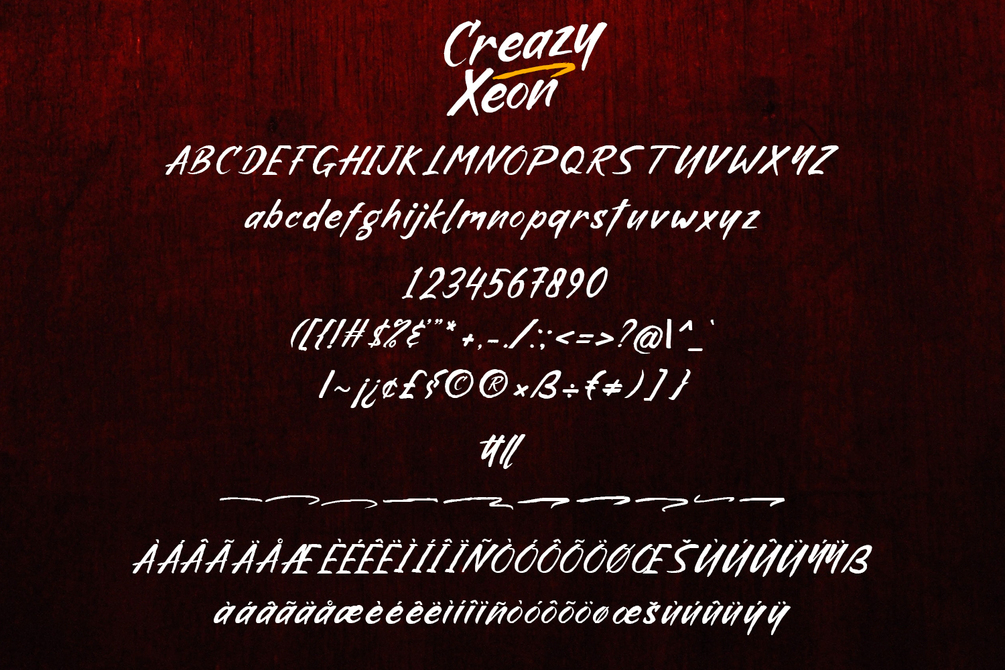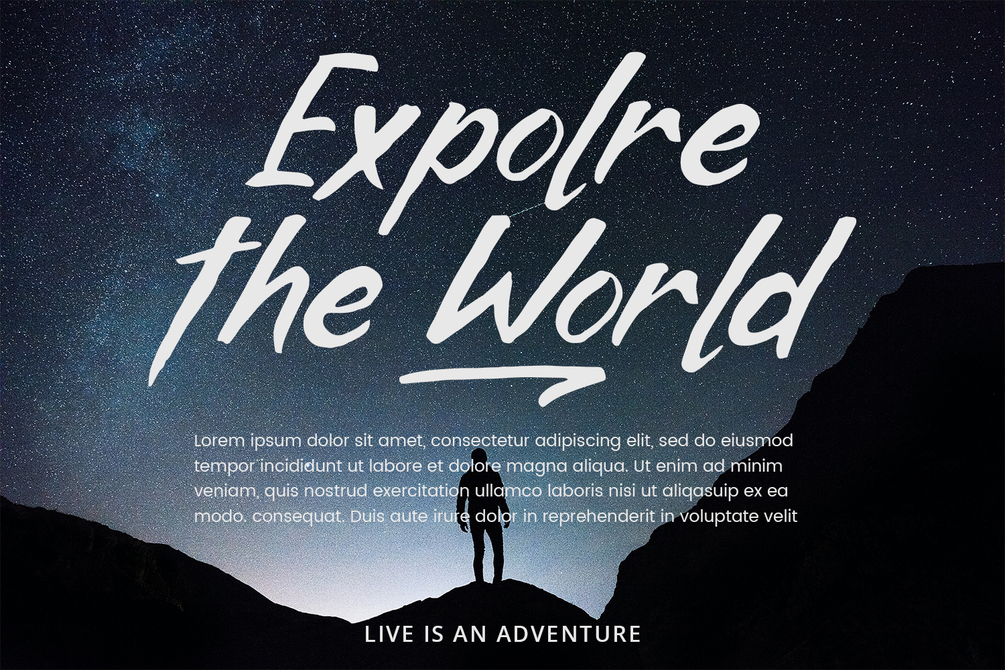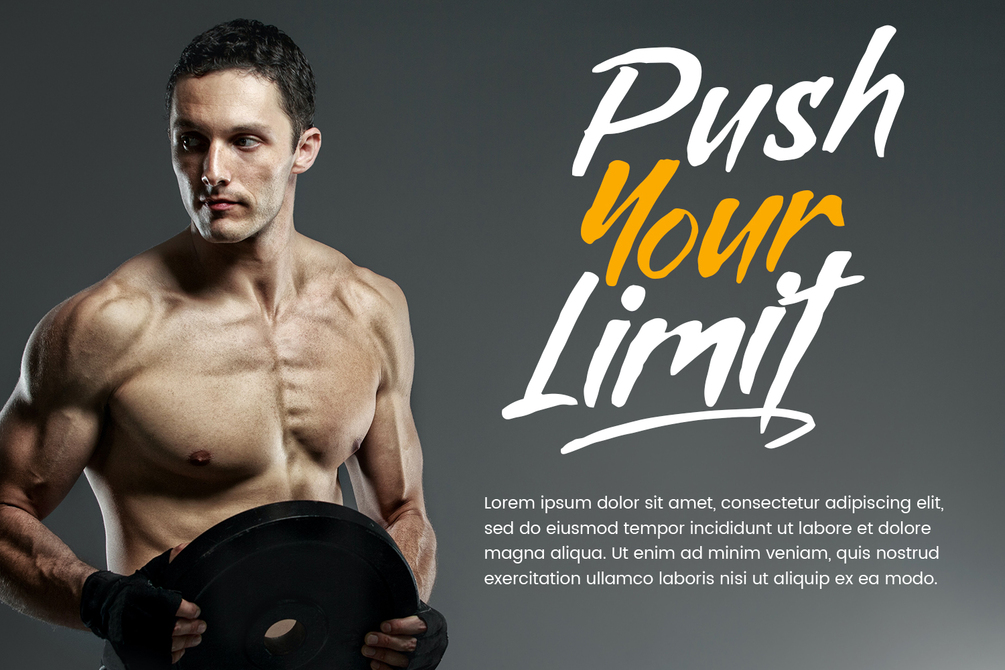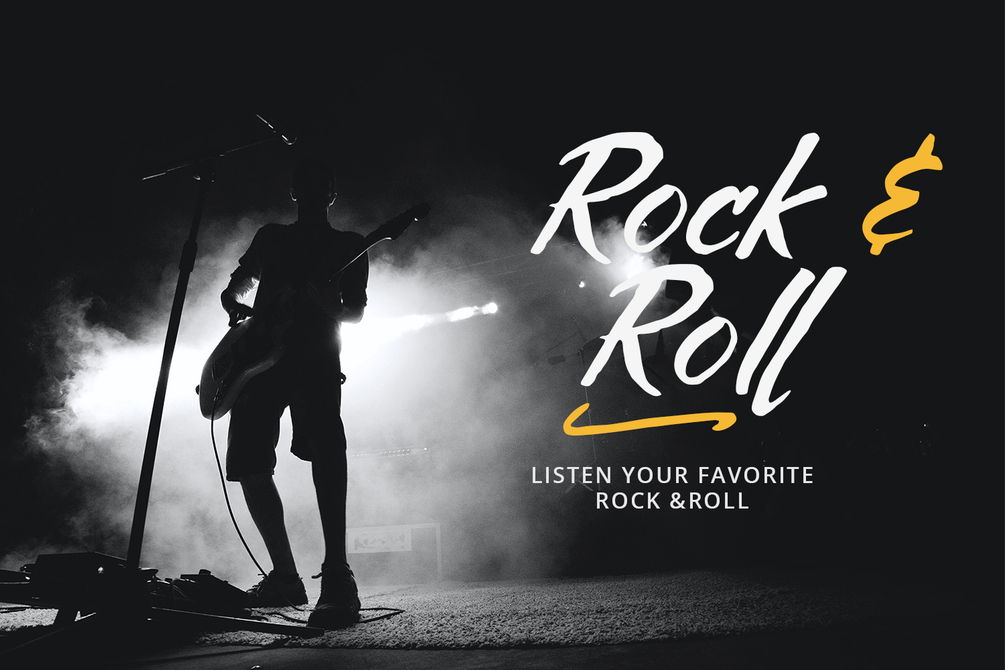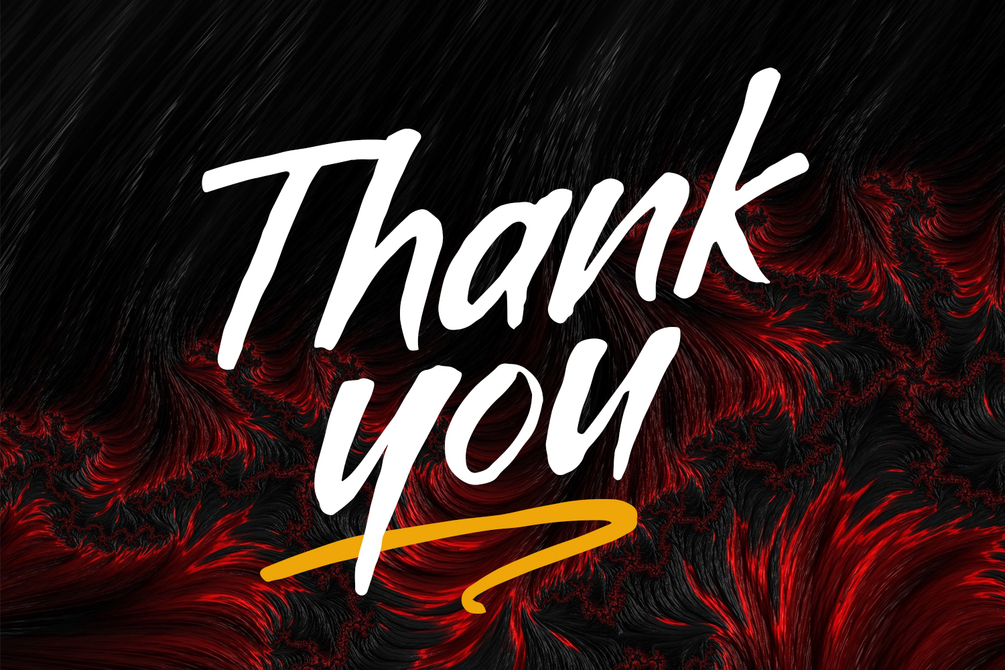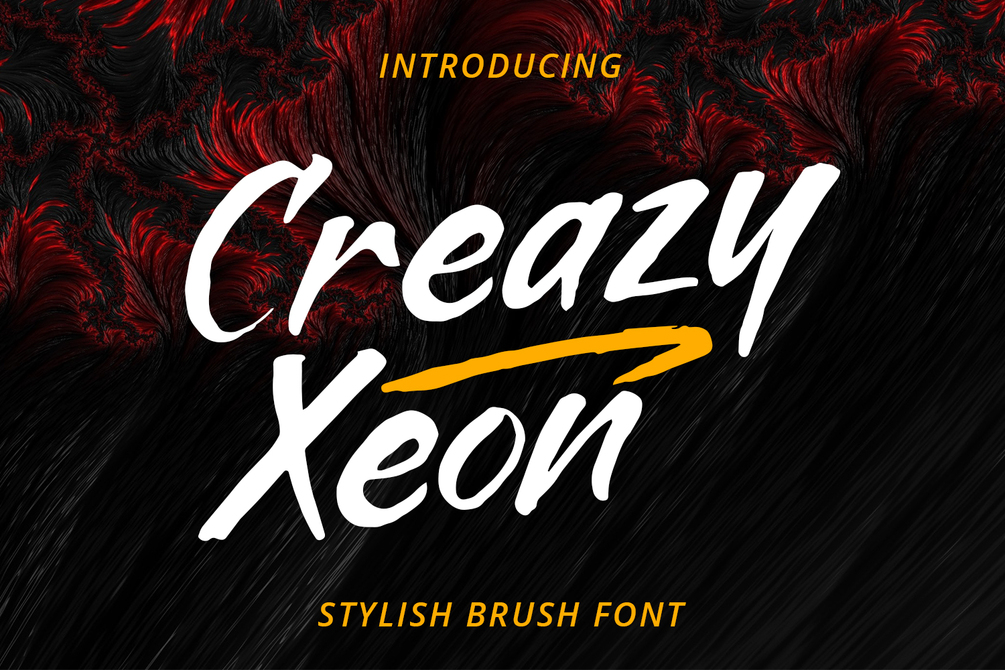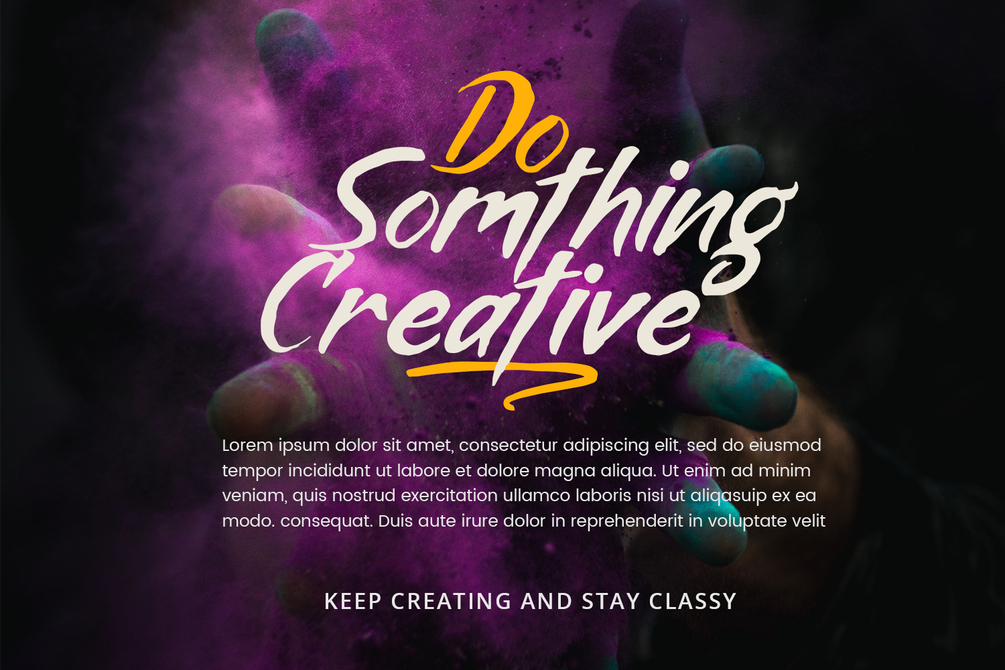
Creazy Xeon - Brush Font
Crazy Xeon is stylish graffiti brush inspired from graffiti street project art. This gorgeous font includes all lowercase and uppercase characters, numbers, punctuation, an array of standard ligatures and a selection of international characters as well. Whether you are using it for cartoon-related designs, lable, children’s games, quotes, t-shirts, titles, merchandise, brand names, book covers, posters, or just any creation that requires a touch of beauty, this font is a great choice.